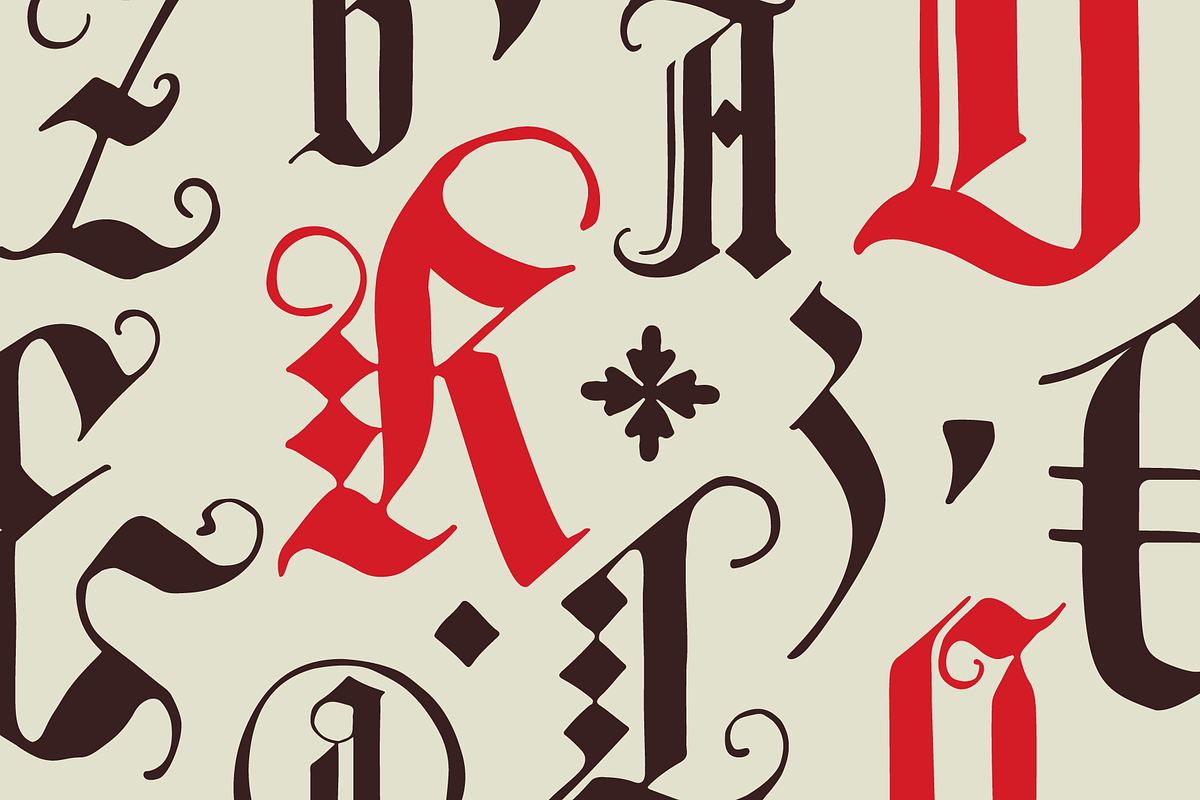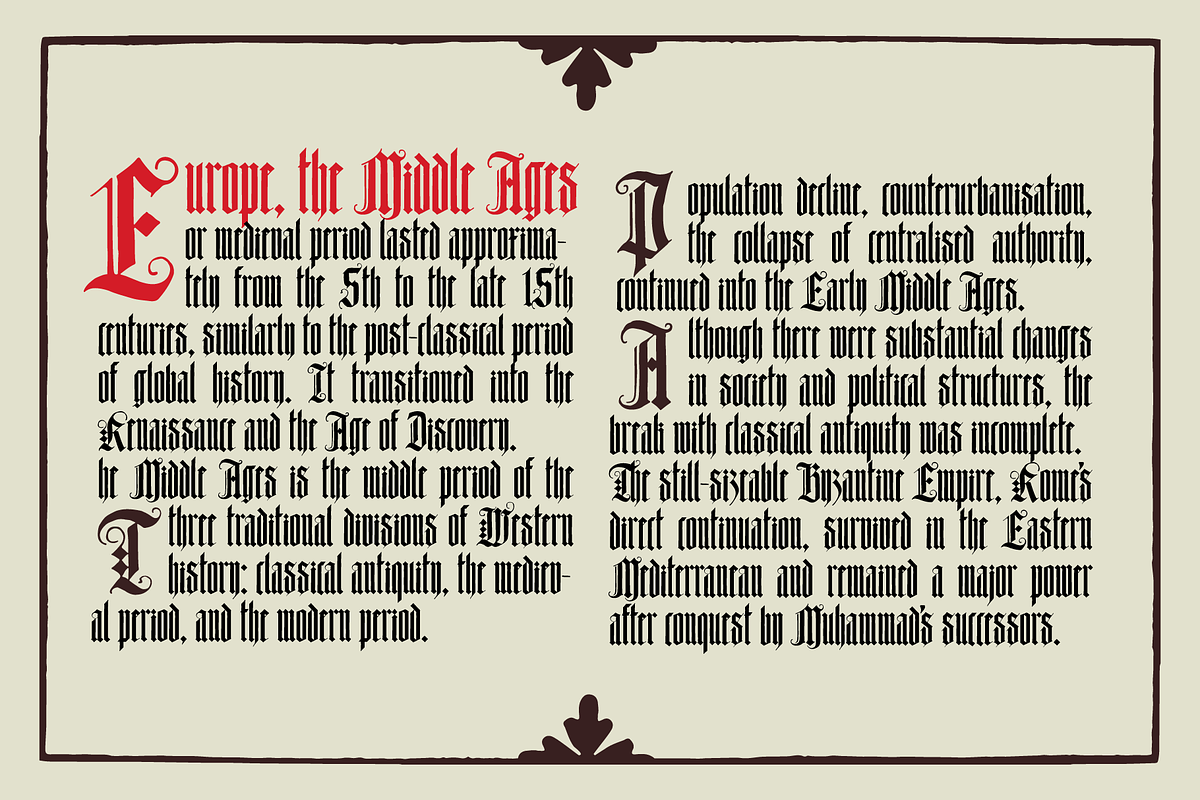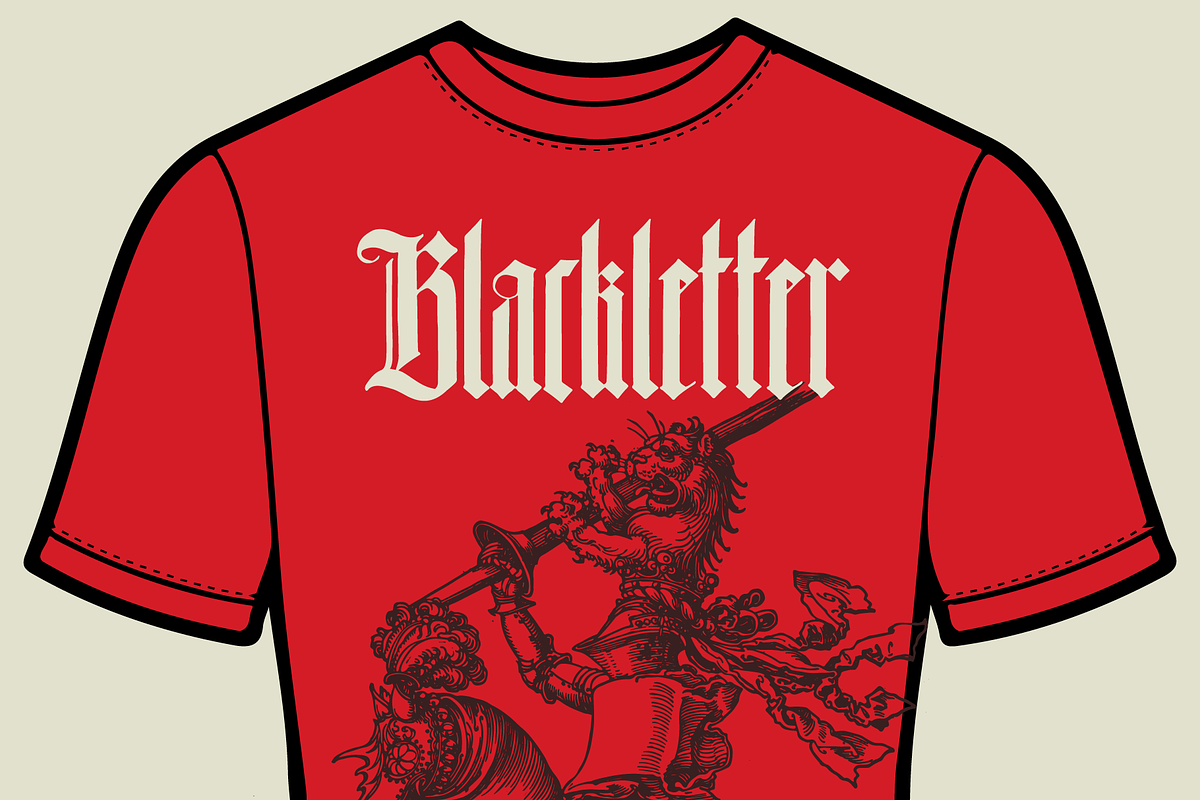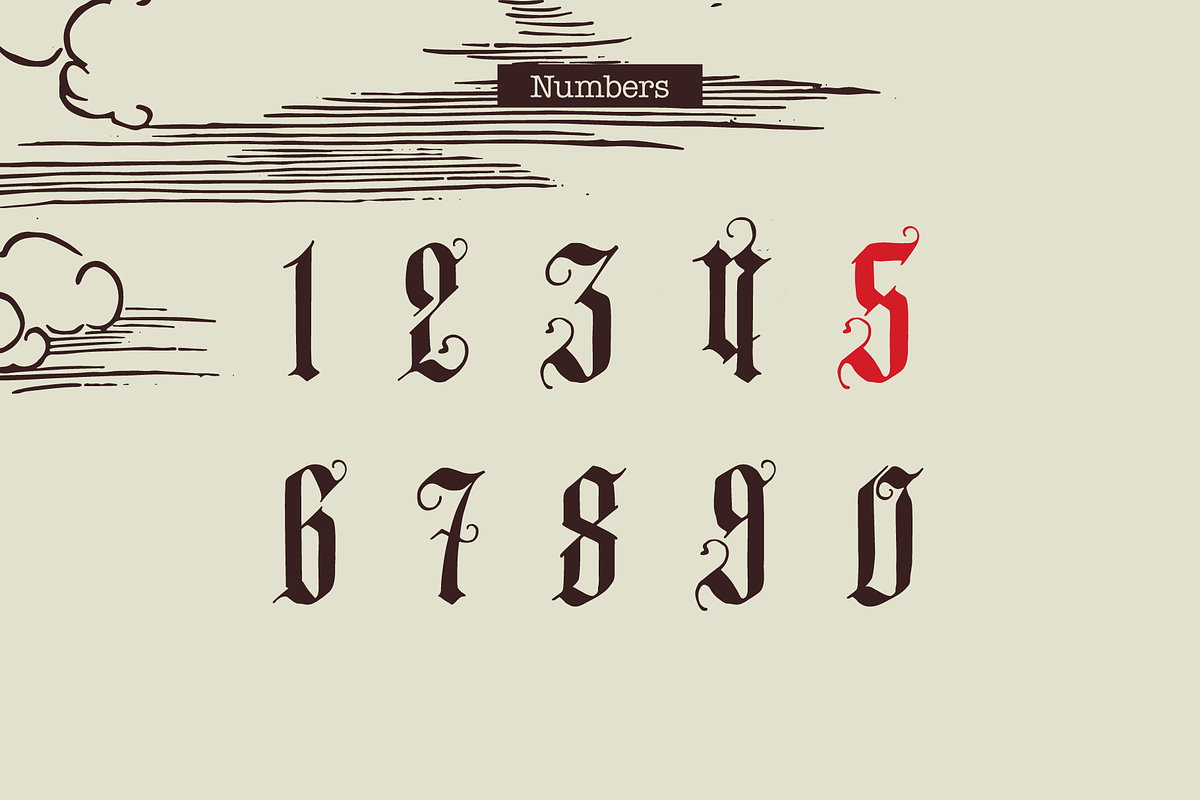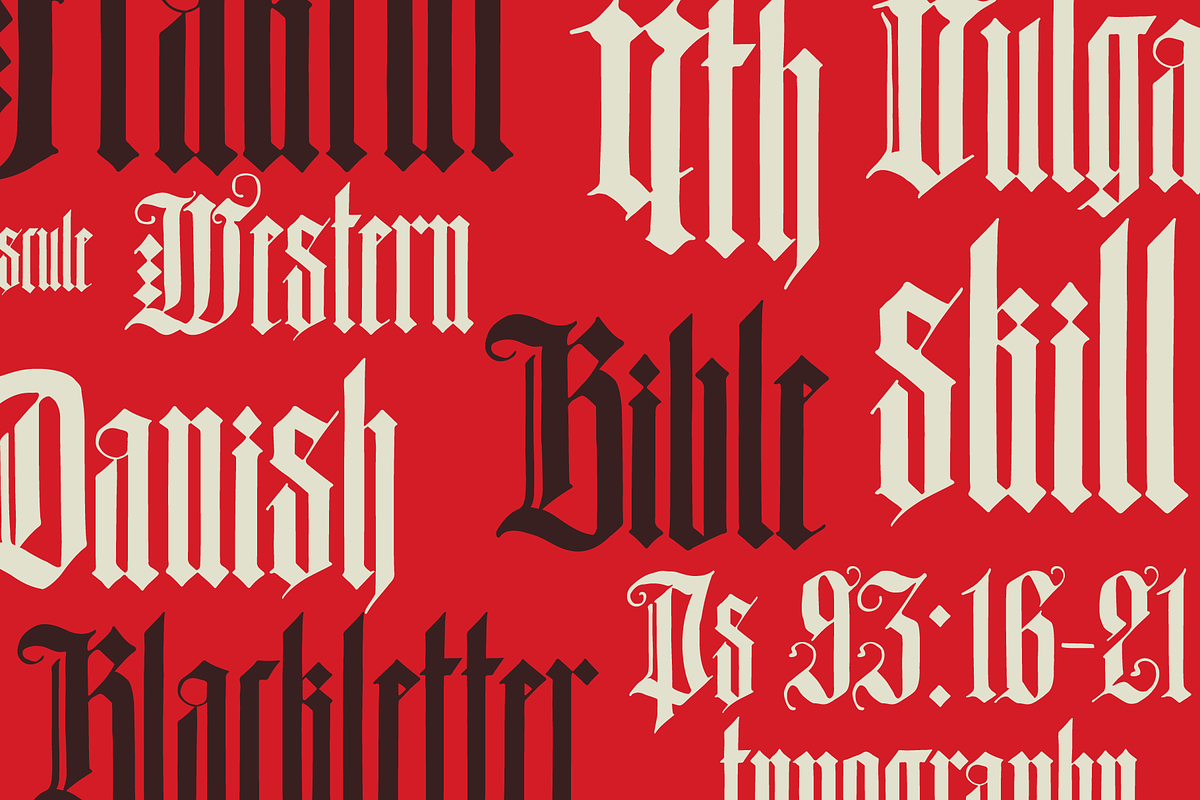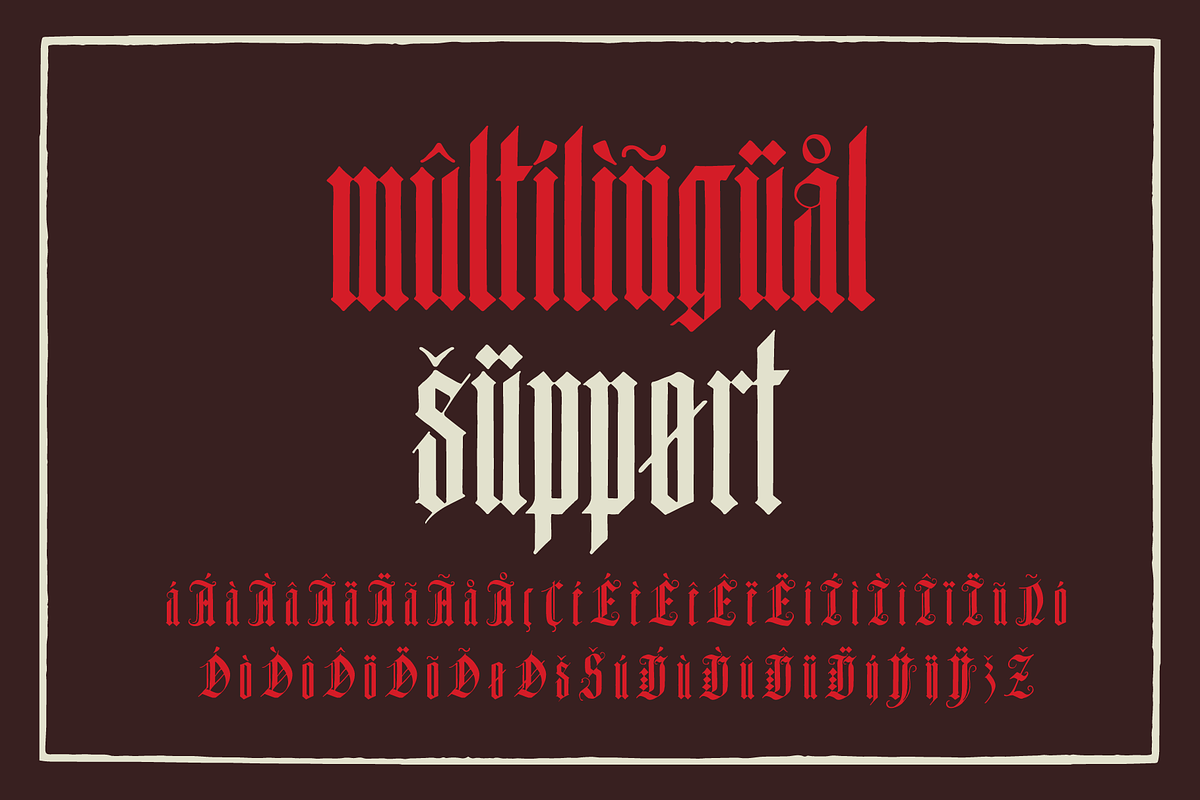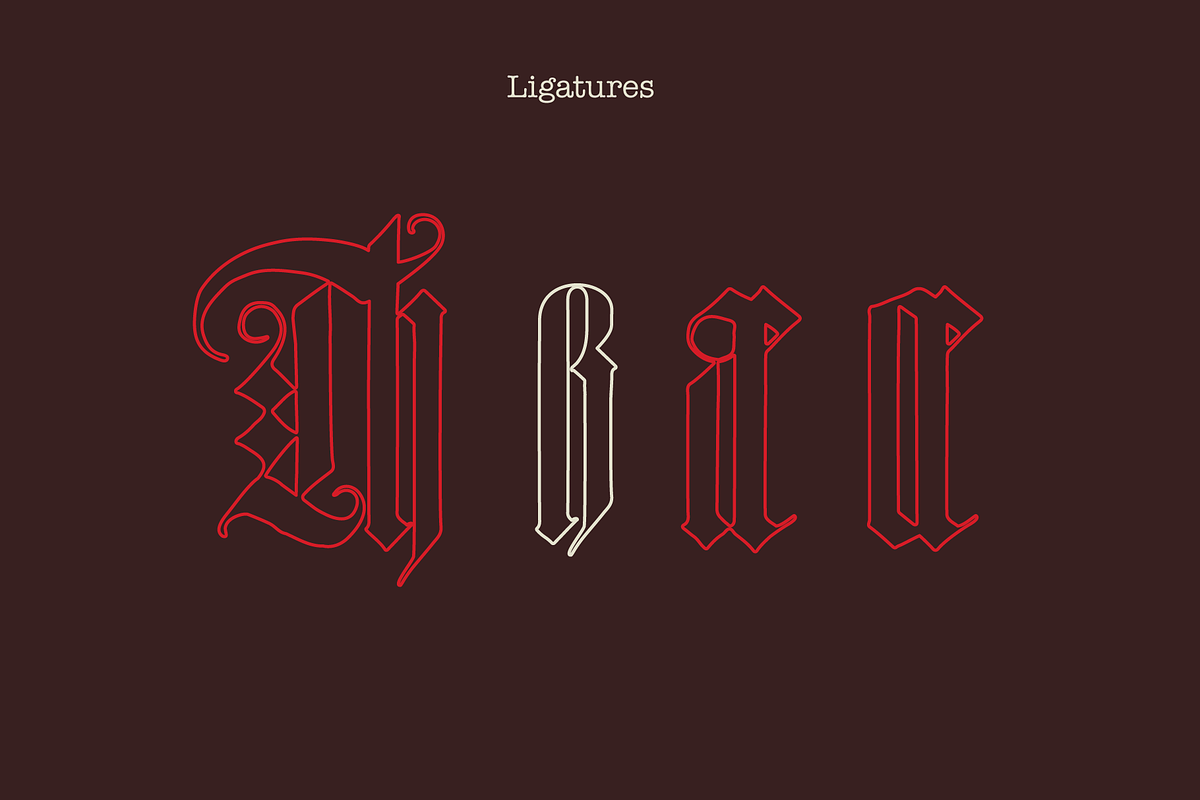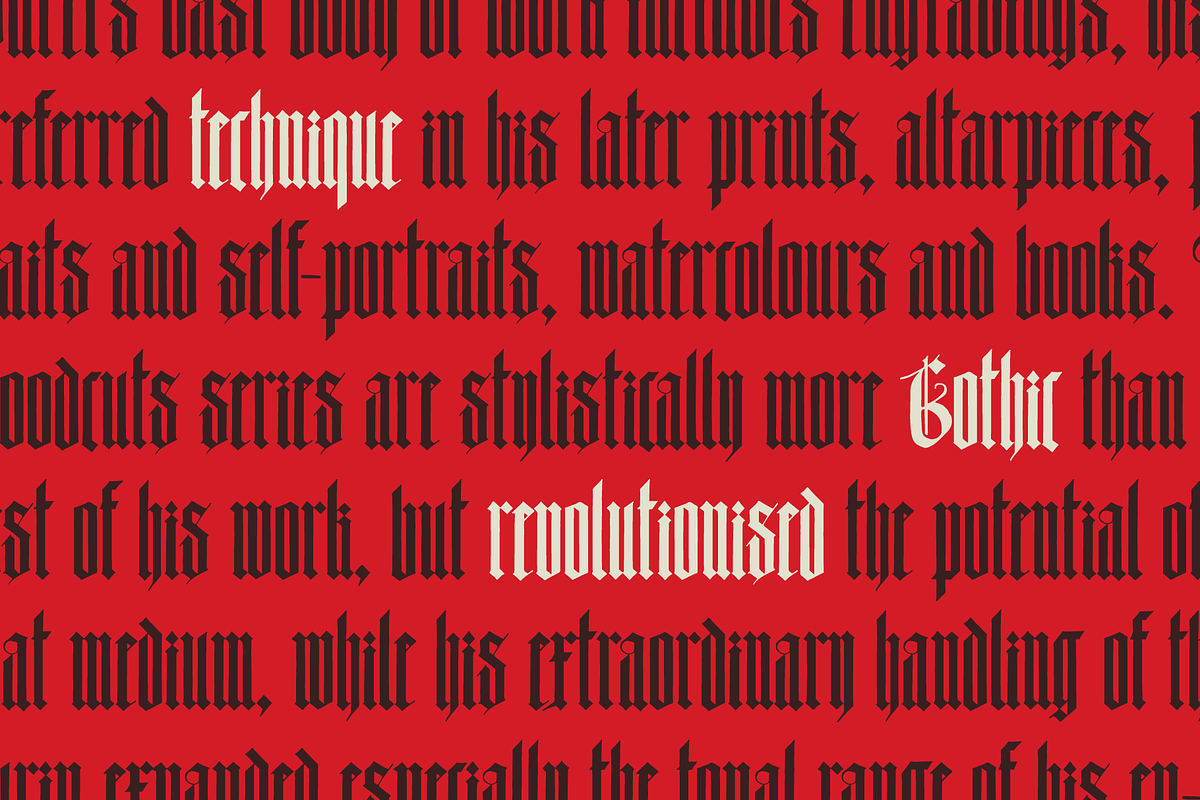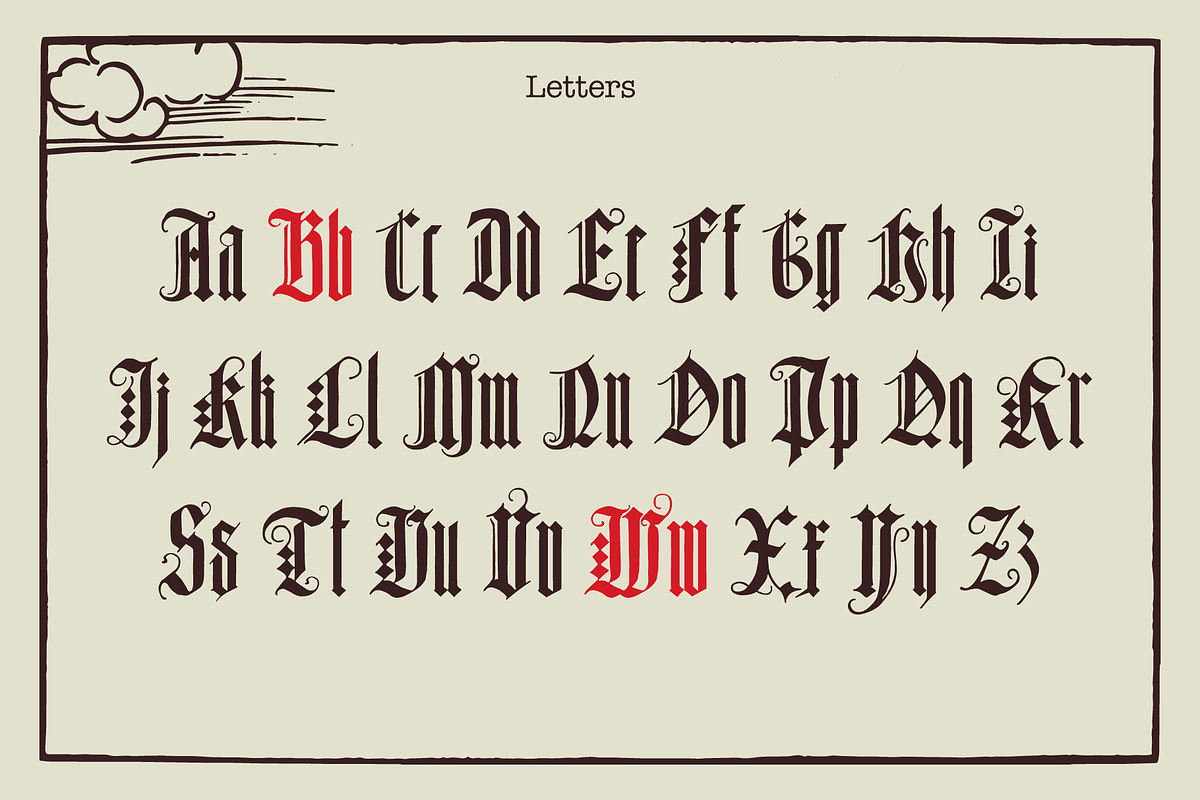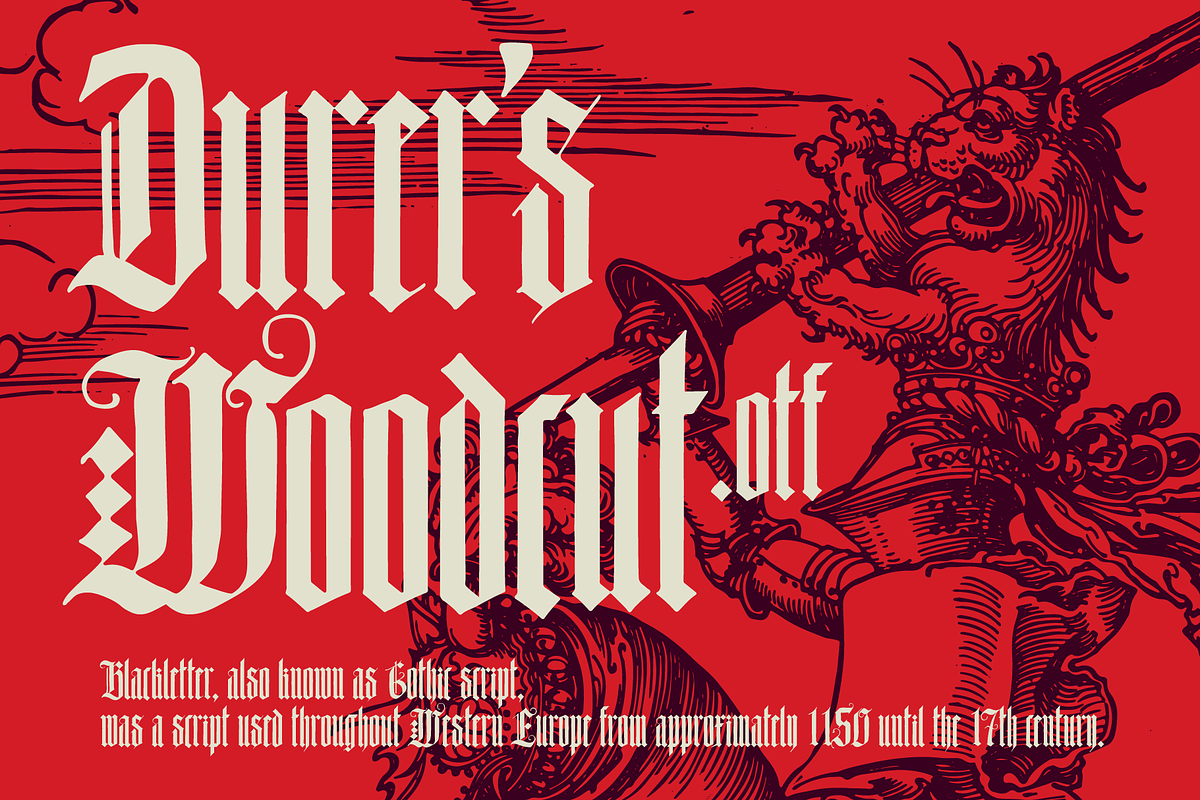
Durers Woodcut blackletter gothic
This font was inspired by Albrecht Dürer's Instruction of the measurement, published in 1525 in Nuremberg. As usual, I’ve added a lot of modern symbols and glyphs.